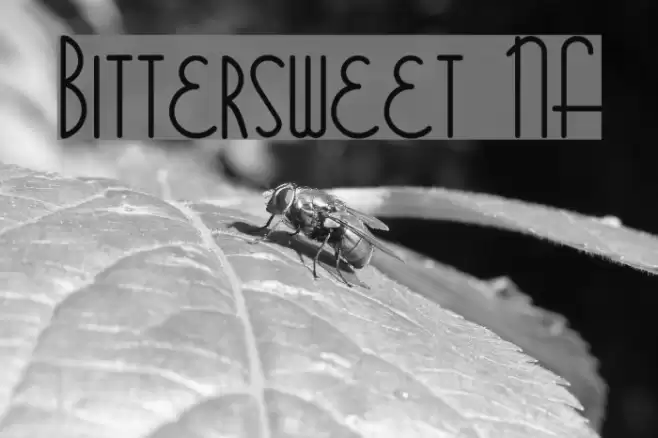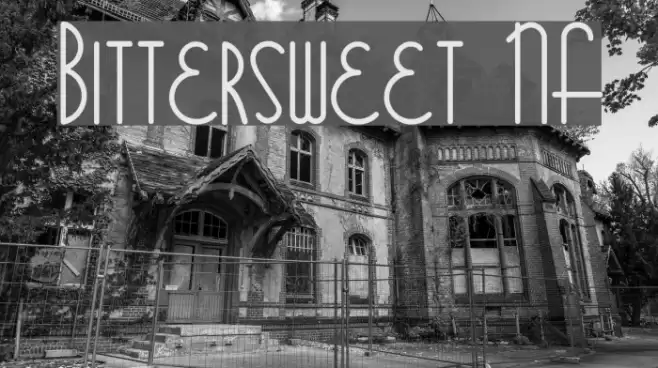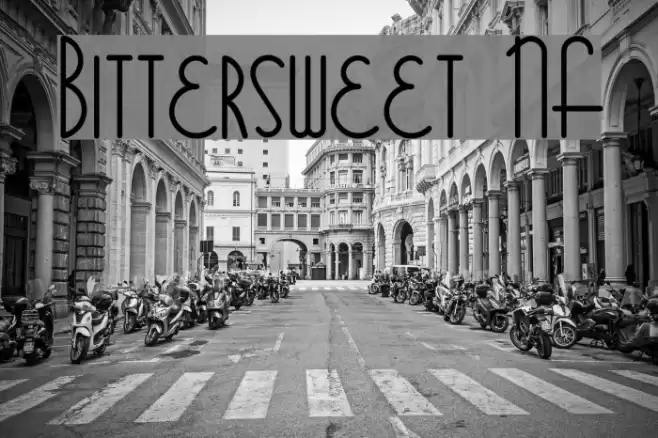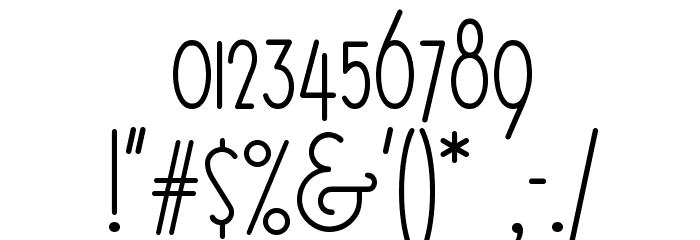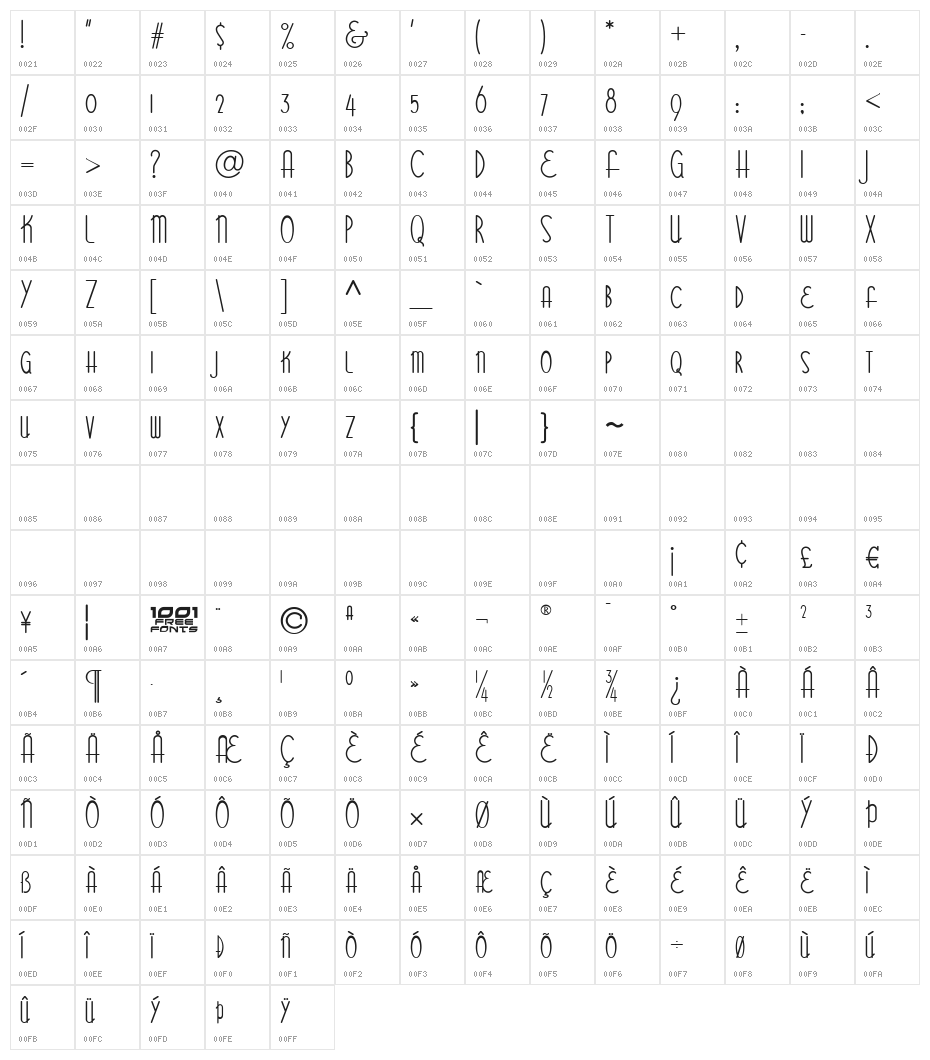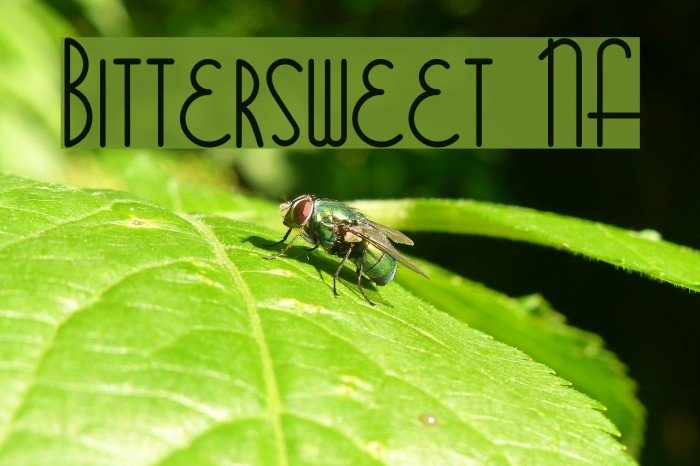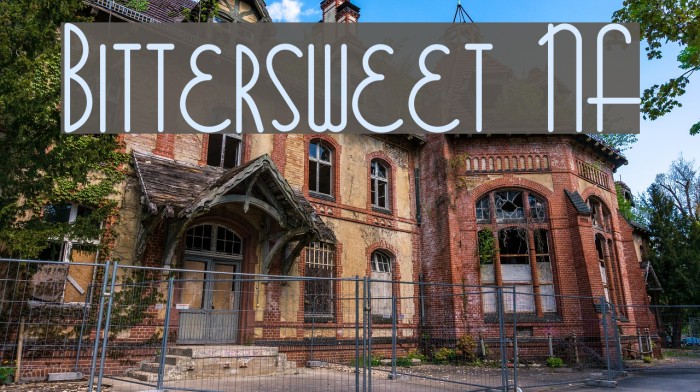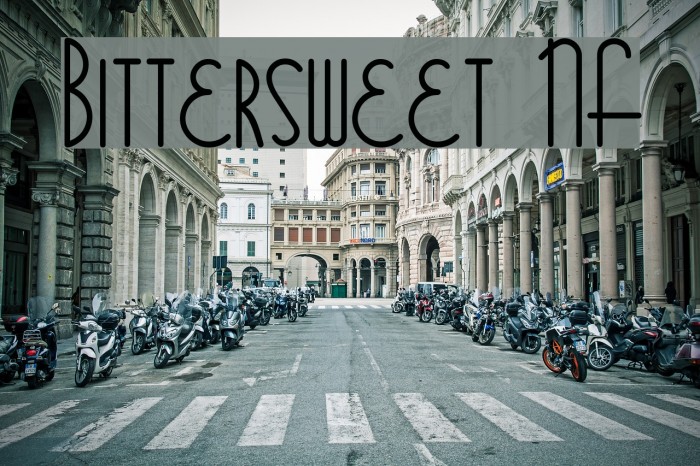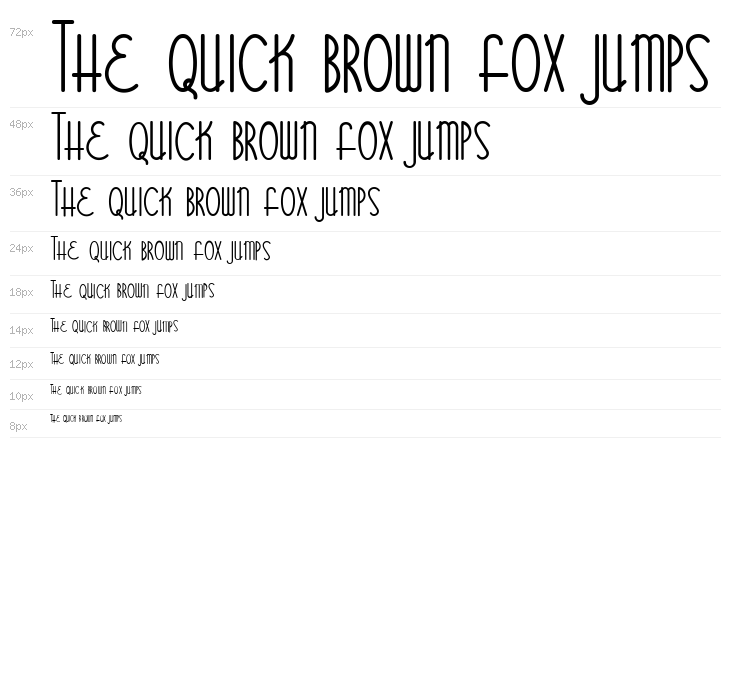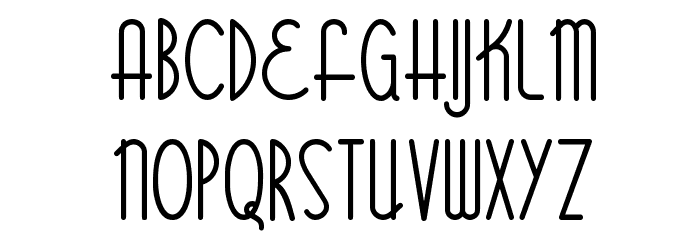
Bittersweet NF Font
Bittersweet NF Description
This font features a unique blend of modern and vintage aesthetics, characterized by its tall, narrow letterforms and rounded edges. The uppercase letters are particularly elongated, giving a sense of elegance and sophistication. The lowercase letters maintain a consistent style, complementing the uppercase with their own elongated forms. The numerals are distinct and easily readable, maintaining the same narrow and tall structure. Special characters are designed to match the overall style, ensuring a cohesive look across all text elements. The font's clean lines and minimalistic design make it versatile for various applications.
A tall, narrow font with rounded edges, blending modern and vintage styles from Retro fonts.
- Proposed Projects: Ideal for branding, packaging, and editorial design where a touch of elegance is desired.